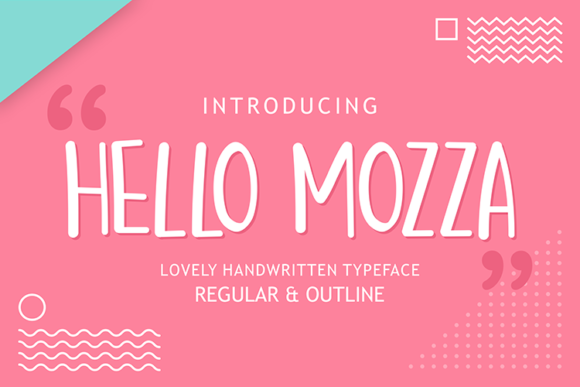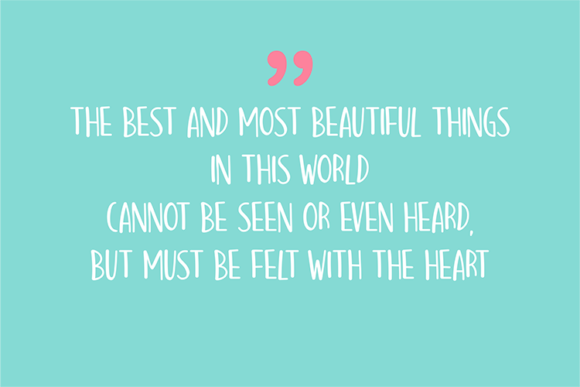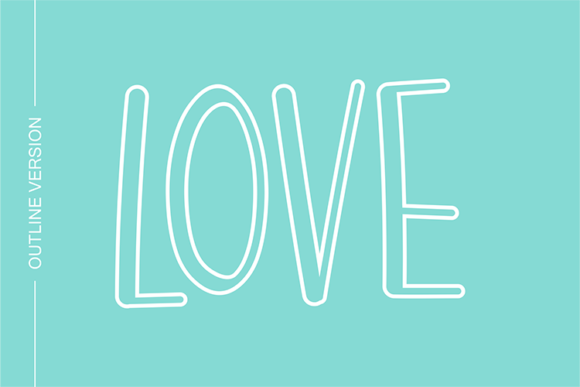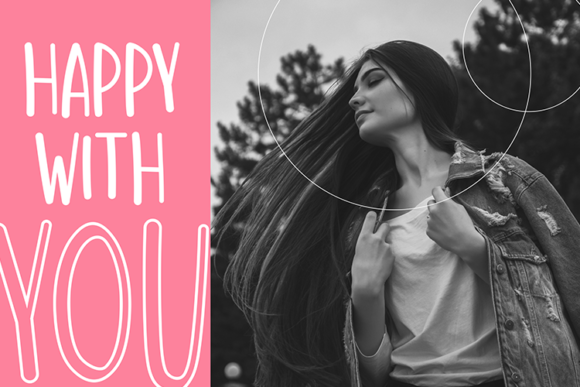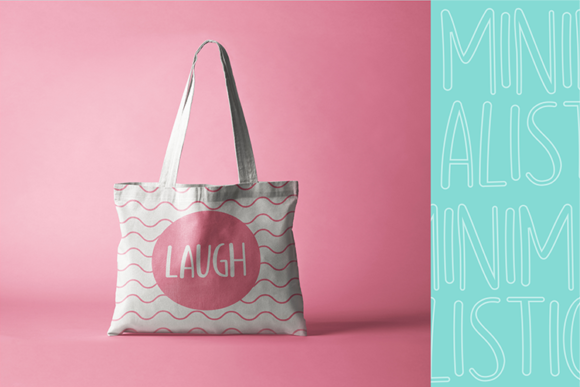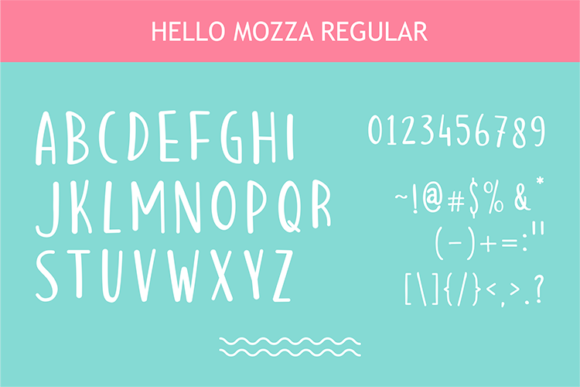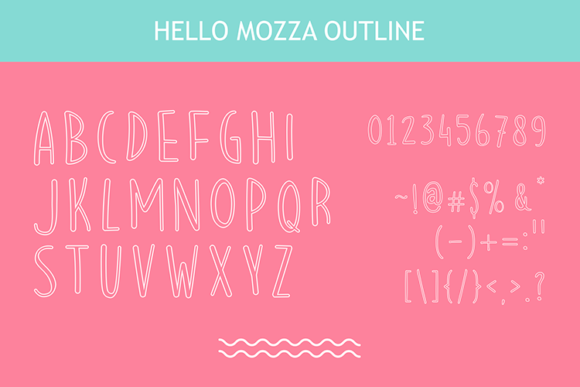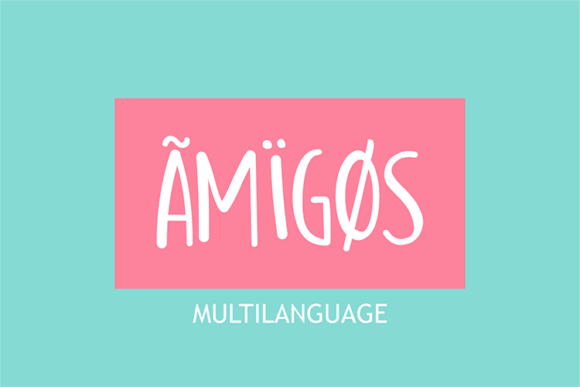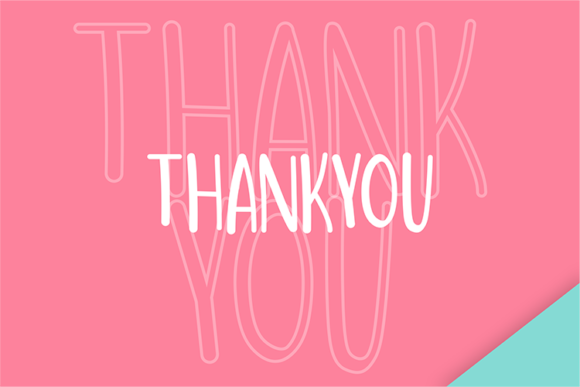
Hello Mozza Font
About Hello Mozza Font
The Hello Mozza is a lovely handwritten font. Its unique flow and fun feel makes it perfect to use for quotes, logotype, badges, labels, packaging, or simply to use it in your next design project.